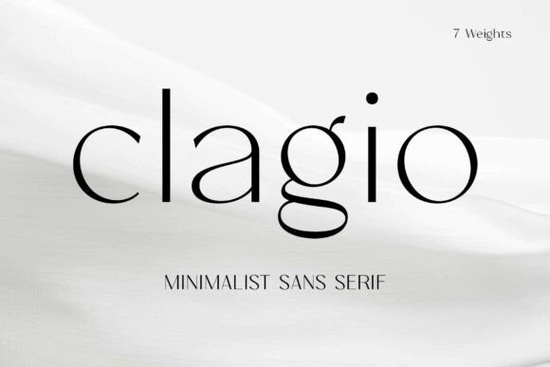
If you're looking for a clean, modern sans-serif that doesn’t feel cold or sterile, Clagio Font might be exactly what your next project needs. It’s designed with just enough warmth to feel inviting while keeping the sharp geometry that makes contemporary typography so effective. Whether you’re designing a logo for a small business, laying out a magazine spread, or creating product labels for your print-on-demand shop, Clagio adapts smoothly across contexts.
Why does Clagio work well for both headlines and body text?
Many sans-serif fonts lean too far in one direction either they’re too bold for reading at length or too delicate to command attention. Clagio solves this by offering seven weights, from Light to ExtraBold. The lighter styles have open spacing and soft curves that reduce visual fatigue, making them surprisingly comfortable for longer passages. Meanwhile, the heavier weights hold their own in display settings like posters, social media graphics, or packaging, where impact matters.
This kind of range means you can maintain visual consistency without switching typefaces. For example, you could use Clagio Light for product descriptions on your e-commerce site and Clagio Bold for category headers all while keeping a unified brand voice.
What kinds of projects is Clagio best suited for?
Because of its balanced proportions and neutral-but-friendly character, Clagio fits naturally into a wide variety of creative uses:
- Branding: Logos, business cards, and brand guidelines benefit from its professional yet approachable tone.
- Packaging & labels: Its clarity ensures legibility even at small sizes, which is essential for product tags or ingredient lists.
- Editorial design: Magazines, lookbooks, or digital newsletters can use Clagio across headings and body copy without jarring shifts in style.
- Web & app interfaces: With smooth screen rendering and multilingual support, it’s practical for UI elements too.
How does Clagio handle different languages and special characters?
Clagio includes extensive multilingual support, covering Western, Central, and Eastern European languages. That’s especially helpful if you’re creating materials for international audiences or bilingual packaging. It also comes with standard OpenType features like ligatures, stylistic alternates, and proper punctuation handling details that matter when you’re aiming for polished results.
For crafters and hobbyists using design software like Canva, Affinity, or Adobe apps, these features often activate automatically or with minimal setup, so you don’t need advanced typography knowledge to take advantage of them.
Can I pair Clagio with other fonts easily?
Yes and you might not even need to. Since Clagio spans such a broad weight range, many designers use it as a standalone system. But if you do want contrast, it pairs well with serif fonts that have similar x-heights or minimalist slab serifs for a modern editorial look. Avoid overly decorative companions; Clagio shines when it’s allowed to stay clean and focused.
Who should consider using Clagio?
Small business owners creating their own marketing materials will appreciate its ease of use and professional finish. Print-on-demand sellers can rely on its legibility across mugs, T-shirts, and posters. Designers working under tight deadlines benefit from its consistency across weights. Even hobbyists making greeting cards or social graphics will find it intuitive no guesswork needed to make things look cohesive.
Unlike trend-driven fonts that feel dated in a year or two, Clagio’s restrained design gives it staying power. It’s not trying to be flashy; it’s built to work quietly and effectively behind the scenes.